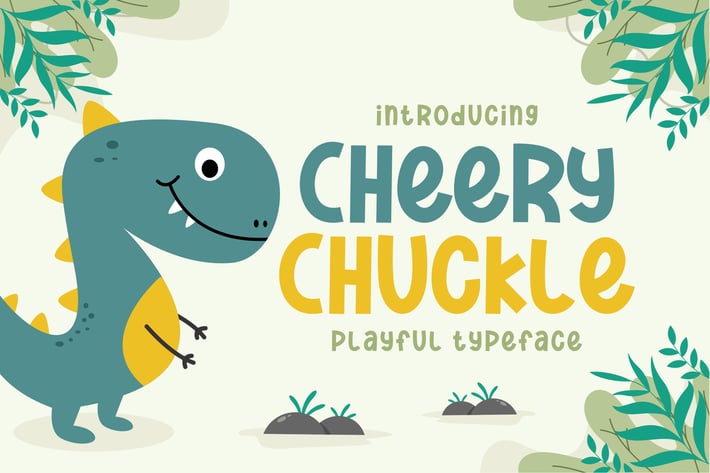
Cheery Chuckle - Modern Kids Font
Introducing our new product Cheery Chuckle - Modern Kids Font
Cheery Chuckle is a bold, modern display font with playful flair, ideal for attention-grabbing headlines, logos, and diverse design projects. Versatile and readable in both digital and print, Cheery Chuckle adds a dynamic touch to your message.